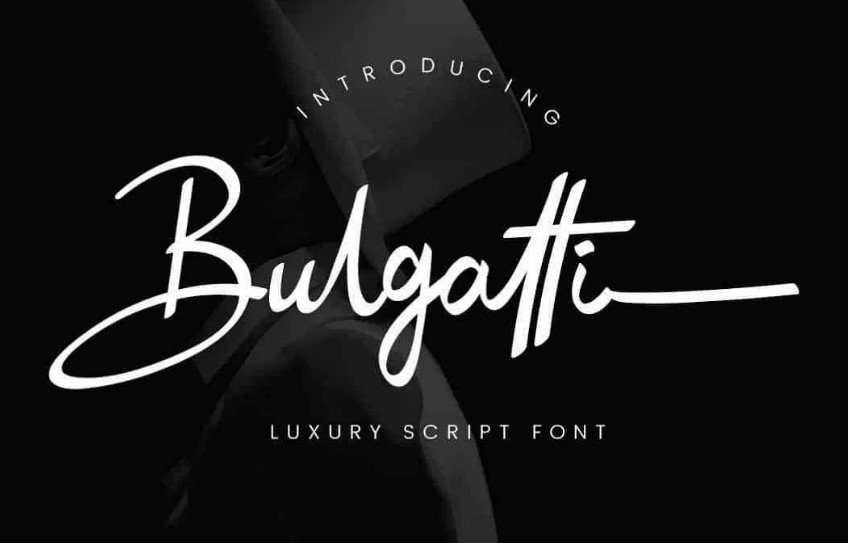
Here we are excited to present the exquisite Bulgatti Luxury Script Font, showcasing uniform styles across all letters. This font features elegant curvy lines and rounded strokes, making it ideal for any design project you have in mind.
The projects you will made with this font can easily impact on the viewer or users of this font because it has straight forwards characters which can easily readable.
The font has nostalgic and brilliant look which gives you amazing experience of designing while using the font with the combination of little mandy.